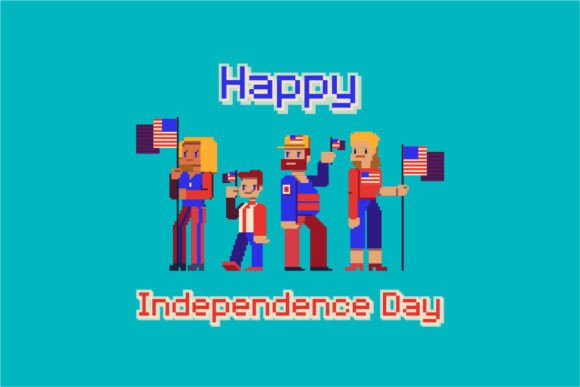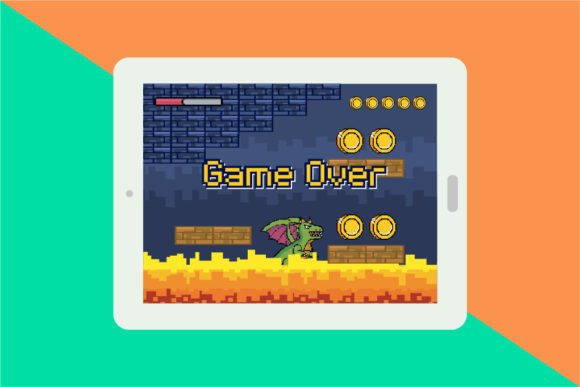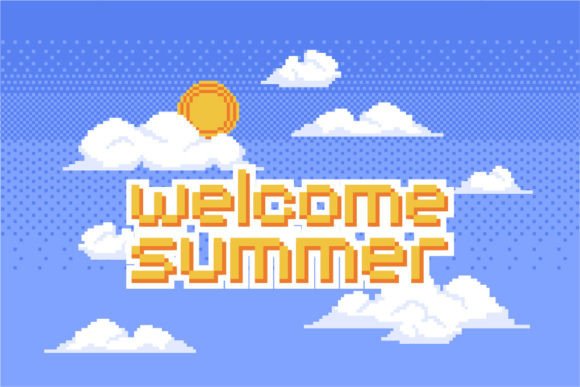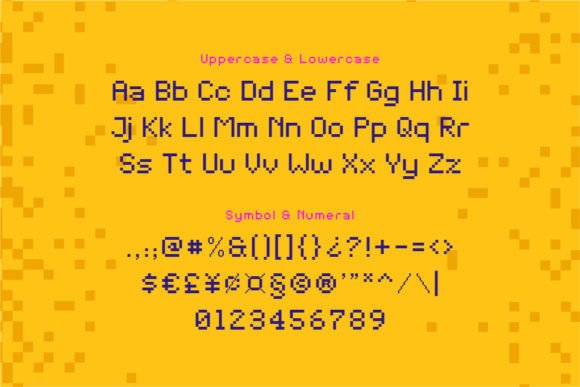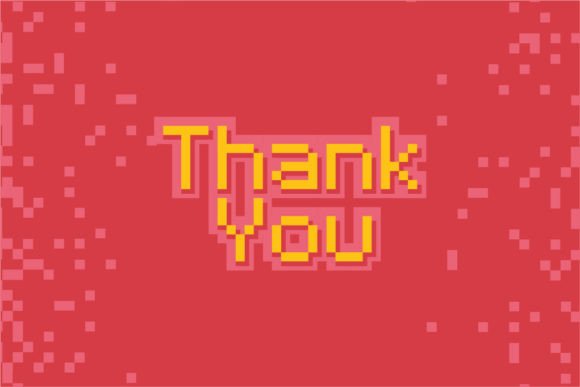
Introduction to Pixelon Font
Do you remember the thrill of playing classic video games on your old console, the nostalgic glow of the screen, and the pixelated characters that seemed to leap off the screen? For many of us, those memories are a reminder of a bygone era, one that we can now relive with the Pixelon Font.
As a designer, there’s something special about incorporating elements that evoke a sense of nostalgia and retro charm into your creative project. And with the Pixelon Font, you can do just that. This high-quality font is perfect for adding a touch of 8-bit magic to your designs, from logos and posters to titles and other design elements.
Key Features of Pixelon Font
- High-quality design resource with a transparent background, ideal for creative projects that require a clean and minimalist look.
- The font is designed to be highly customizable, making it an excellent choice for designers who want to create unique and personalized designs.
- Pixelon Font is a versatile design resource that can be used for a wide range of creative projects, from logos and branding to typography and graphics.
Honest Review: Pixelon Font
I recently stumbled upon the Pixelon Font and I have to say it’s been a game-changer for my creative project. The high quality design is exactly what I needed to elevate my work. With a free download option, it’s definitely a valuable design resource to have.
One of the standout features of the Pixelon Font is its versatility. It works well in a variety of contexts, from digital to print, and can be easily customized to fit your needs. ✨ I love how transparent the background is, making it easy to use in complex designs.
Here are some of the key features I appreciate:
- Works well in a variety of contexts, from digital to print
One limitation I’ve noticed is that the Pixelon Font may not be suitable for extremely complex designs. The bold lines and simple shapes can sometimes make it difficult to achieve a more subtle look. ⚠️ However, this is a minor complaint and overall, I’m extremely impressed with the Pixelon Font.
Overall, I’m thoroughly enjoying working with the Pixelon Font and I would highly recommend it to any designer looking for a reliable and high-quality design resource.
Tips for Getting the Most Out of Pixelon Font
To get the most out of the Pixelon Font, use it on a transparent background to create a modern and sleek design. You can also use it in combination with other design elements to create a unique and creative look.
The Pixelon Font is commonly used in digital design, graphic design, and branding. It’s a popular choice for creating high-quality graphics, logos, and typography for various creative projects.